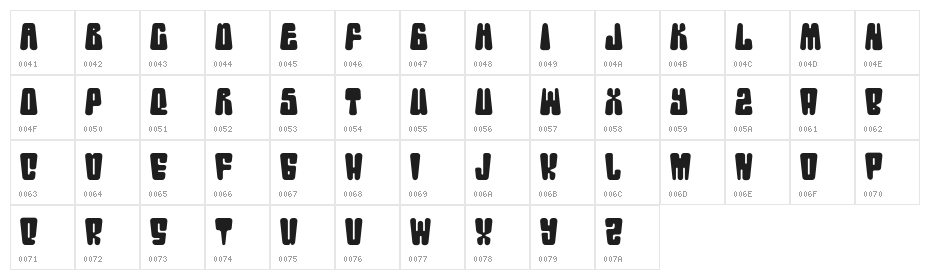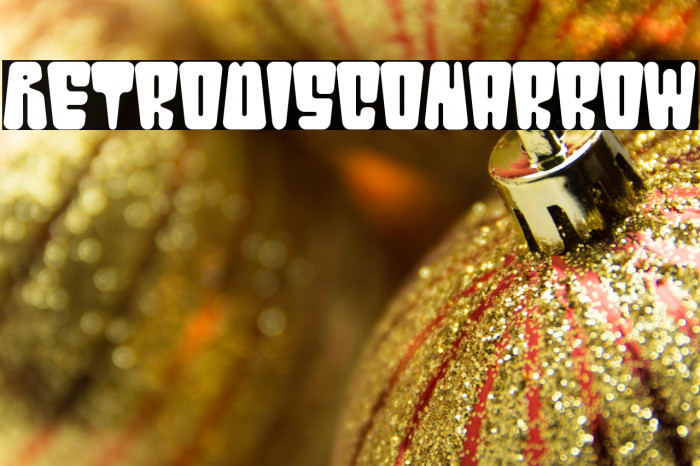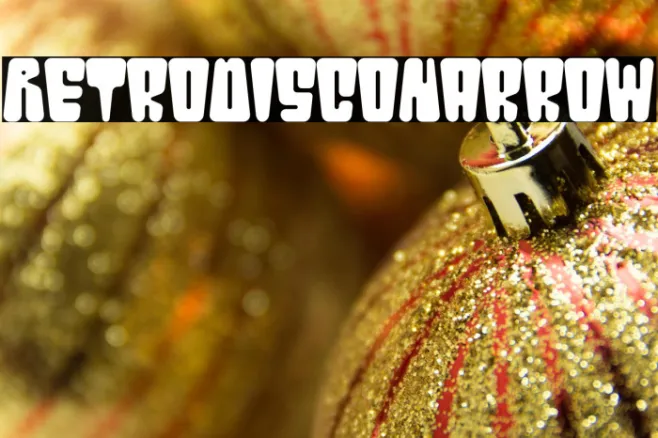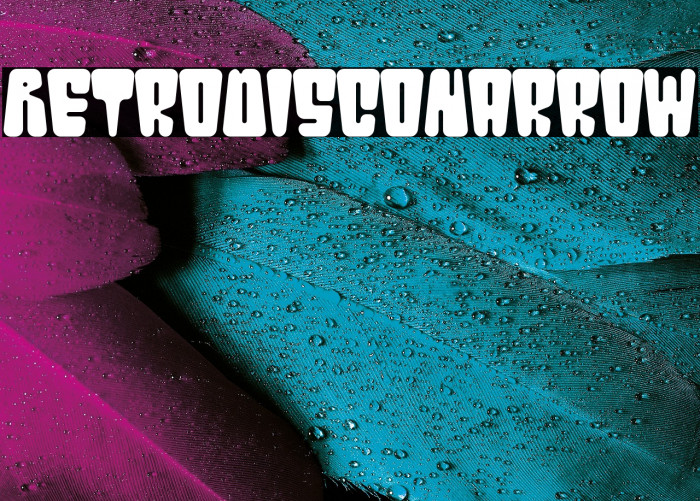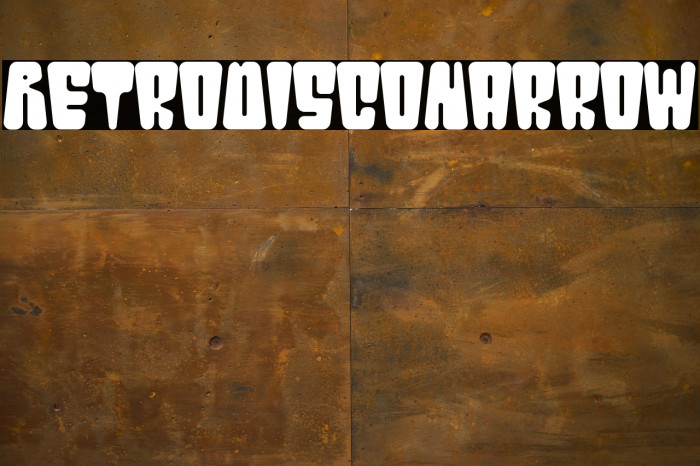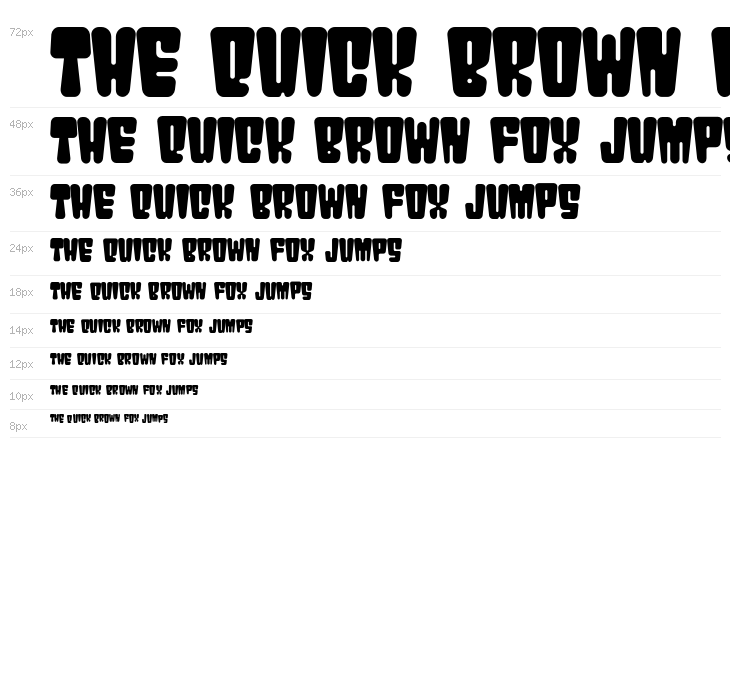
RetroDisco-Narrow Font
RetroDisco-Narrow Description
This font features a bold, retro-inspired design with a distinctly narrow and blocky appearance. The characters are uniformly thick, creating a strong visual impact. The style is reminiscent of vintage disco aesthetics, with rounded edges and a playful yet structured form. The uppercase and lowercase letters maintain a consistent width, contributing to a cohesive look. The numbers and special characters follow the same design principles, ensuring uniformity across all glyphs. The overall effect is both nostalgic and modern, making it suitable for projects that require a touch of retro flair.
| Proposed Projects | Ideal for retro-themed posters, album covers, event flyers, and branding that seeks a vintage disco vibe. |